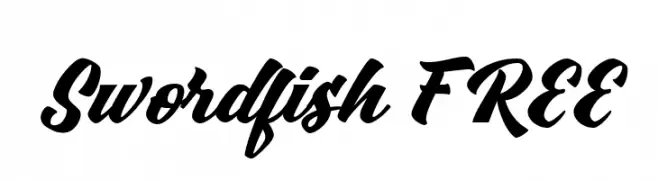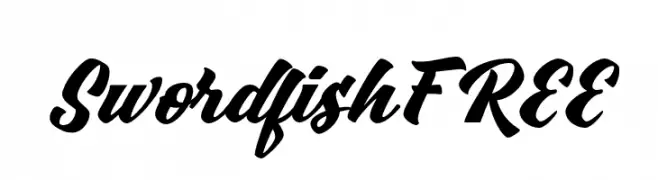
A bold, handwritten script font with a lively and informal style.
A lively and flowing script font with bold, expressive strokes.
A bold, dynamic script font with flowing, cursive letterforms and strong visual impact.
A bold, dynamic script font with elegant, flowing letterforms.
A flowing, cursive script with elegant, sweeping strokes and a handwritten appearance.
A dynamic and fluid script font with elegant, interconnected letters.
A graceful script font with flowing, connected strokes.
A lively, cursive handwritten font with elegant, flowing letterforms.
A flowing, cursive font with a handwritten, elegant style.
An elegant, flowing script font with ornate, cursive letterforms.